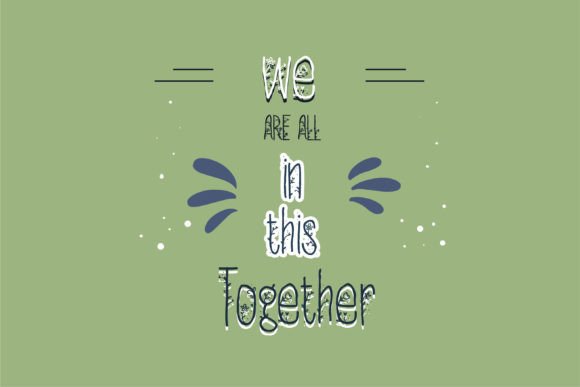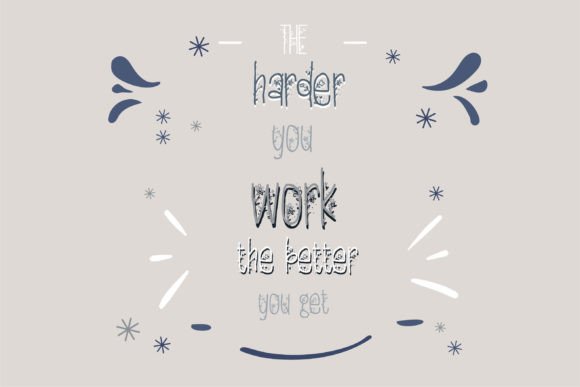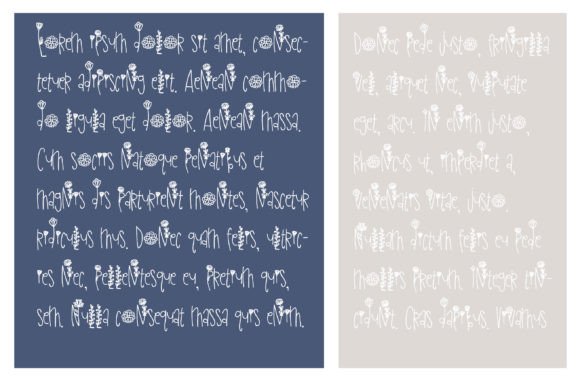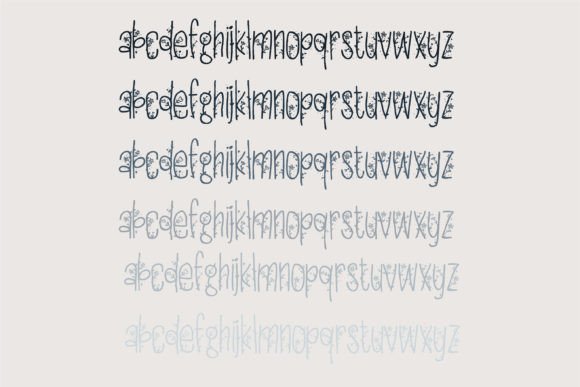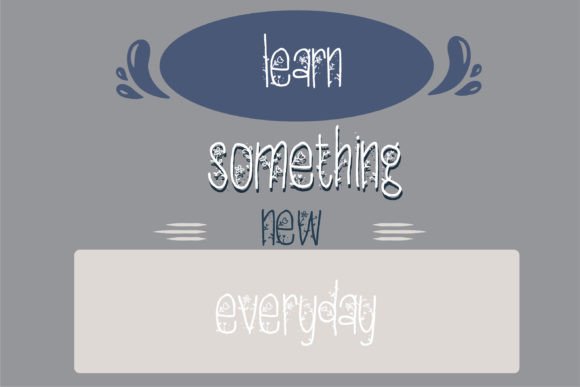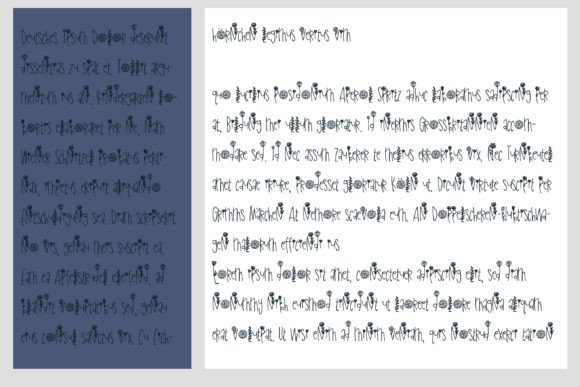
Introduction to My Dear Mama Font
My Dear Mama is a unique and incredibly cute handwritten decorative font.
My Dear Mama Font offers exceptional quality and versatility, making it a valuable addition to your design toolkit. Whether you’re creating for personal projects or commercial use, My Dear Mama Font delivers professional results.